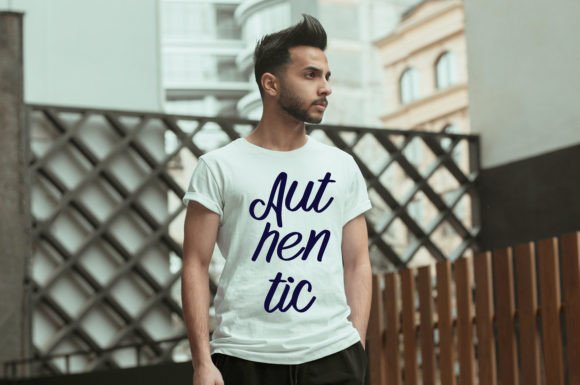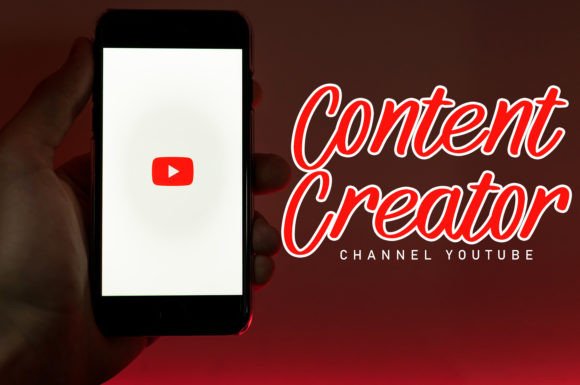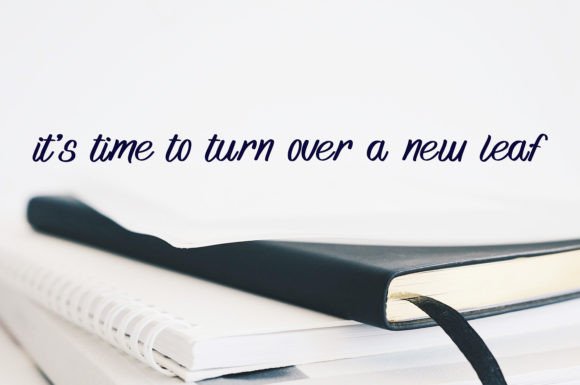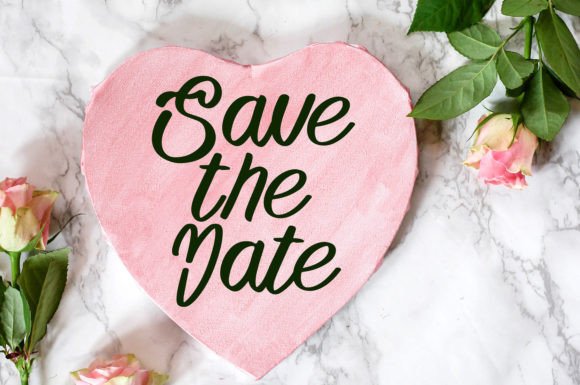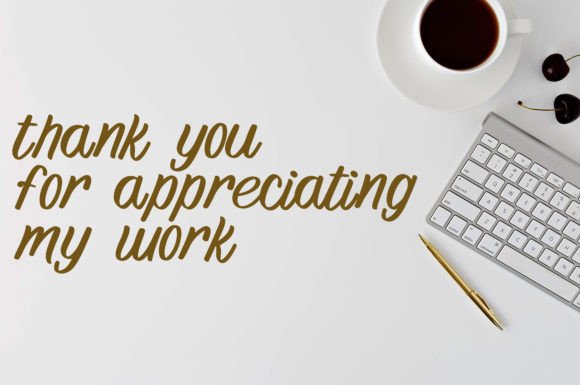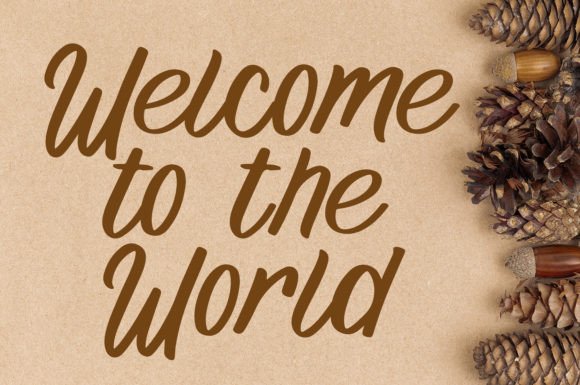
Introducing Blank Font: Elevate Your Designs with Elegant Script
Are you tired of using the same old fonts in your designs? Look no further than Blank Font, an elegant script font that brings a touch of sophistication and contemporary style to your projects. Inspired by timeless classic calligraphy, Blank Font is the perfect choice for designers and crafters looking to add a level of refinement and beauty to their work.
The Inspiration Behind Blank Font
Blank Font was designed with the goal of creating a font that is both elegant and versatile. The inspiration for this font comes from traditional calligraphy, with a modern twist. The result is a font that is not too thin and not too thick, but rather balanced and varied, making it perfect for a wide range of applications.
Key Features of Blank Font
- Elegant Script Style: Blank Font features a beautiful, flowing script style that is reminiscent of classic calligraphy.
- Contemporary Atmosphere: Despite its classic inspiration, Blank Font has a distinctly modern feel that makes it perfect for contemporary designs.
- Impeccable Form: Each letterform in Blank Font has been carefully crafted to ensure that it is both aesthetically pleasing and highly legible.
- Balanced and Varied: The font has a wonderful balance of thick and thin strokes, which gives it a dynamic and interesting appearance.
Why Choose Blank Font?
So why should you choose Blank Font for your next project? Here are just a few reasons:
- Enhance Your Designs: With its elegant script style and contemporary atmosphere, Blank Font is the perfect choice for designers looking to add a touch of sophistication to their work.
- Versatile: Blank Font can be used for a wide range of applications, from wedding invitations and branding materials to packaging and digital designs.
- Easy to Read: Despite its elegant style, Blank Font is highly legible, making it perfect for use in both print and digital formats.
Using Blank Font in Your Designs
Using Blank Font in your designs is easy. Here are a few tips to get you started:
- Pair it with Other Fonts: Blank Font pairs beautifully with a wide range of other fonts, from sans serif fonts like Arial and Helvetica to serif fonts like Georgia and Times New Roman.
- Experiment with Different Sizes: Blank Font looks great in a wide range of sizes, from large headings to smaller body text.
- Use it for Headings and Titles: Blank Font is perfect for use in headings and titles, where its elegant script style can really shine.
| Font Name | Blank Font |
| Author | Choirulcreator |
- What is Blank Font?: Blank Font is an elegant script font with a contemporary atmosphere and impeccable form, inspired by timeless classic calligraphy.
- What is Blank Font used for?: Blank Font can be used for a wide range of applications, including wedding invitations, branding materials, packaging, and digital designs.
- Is Blank Font easy to read?: Yes, despite its elegant style, Blank Font is highly legible and easy to read.